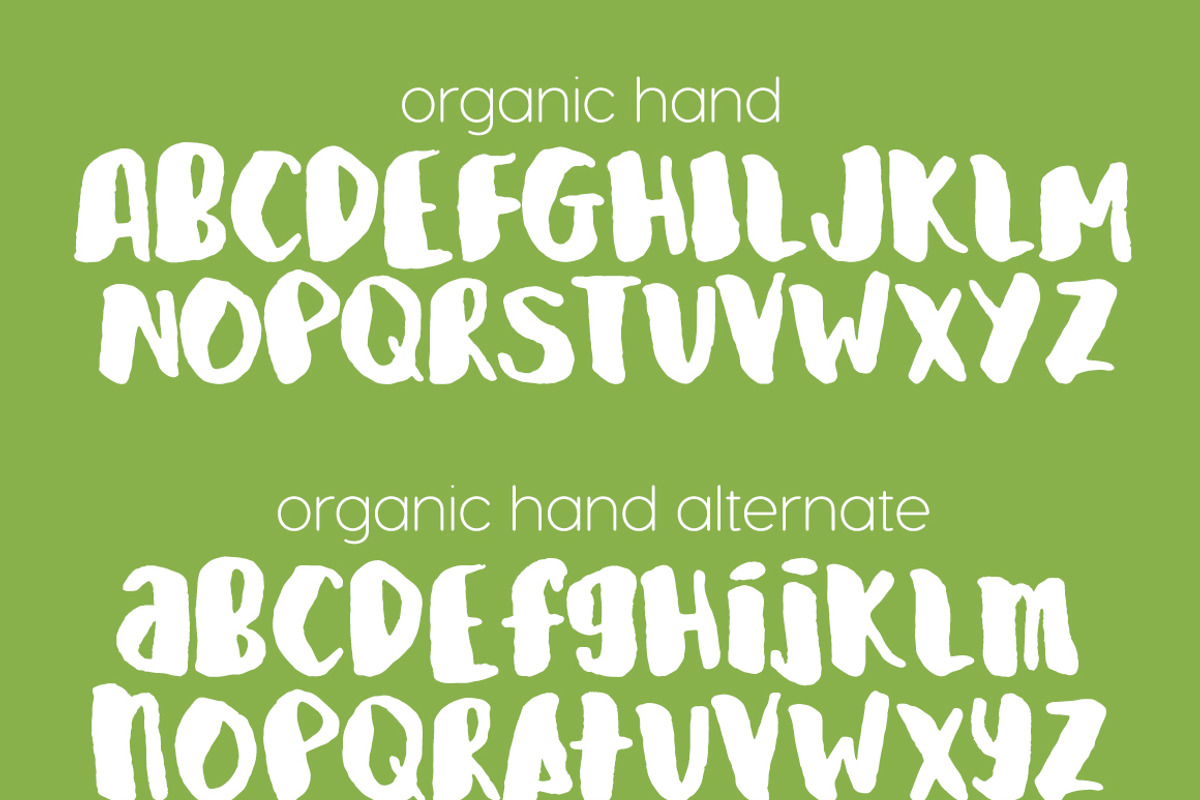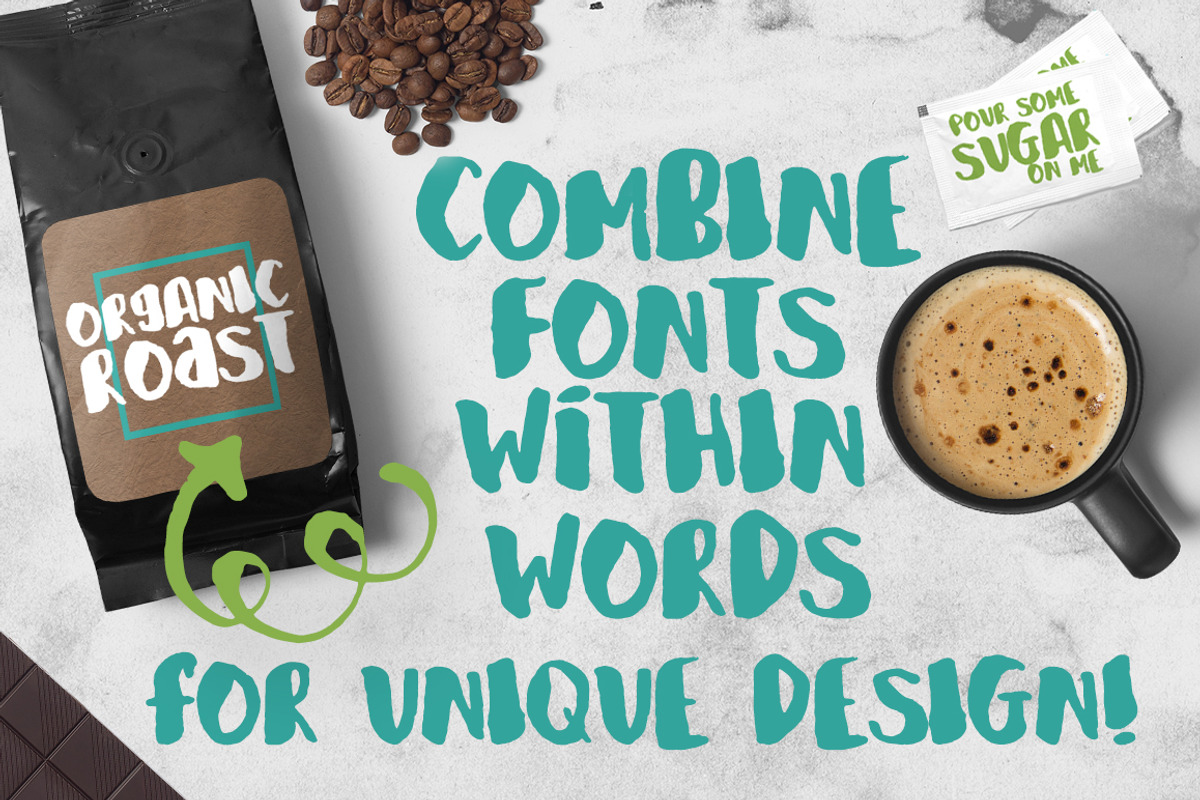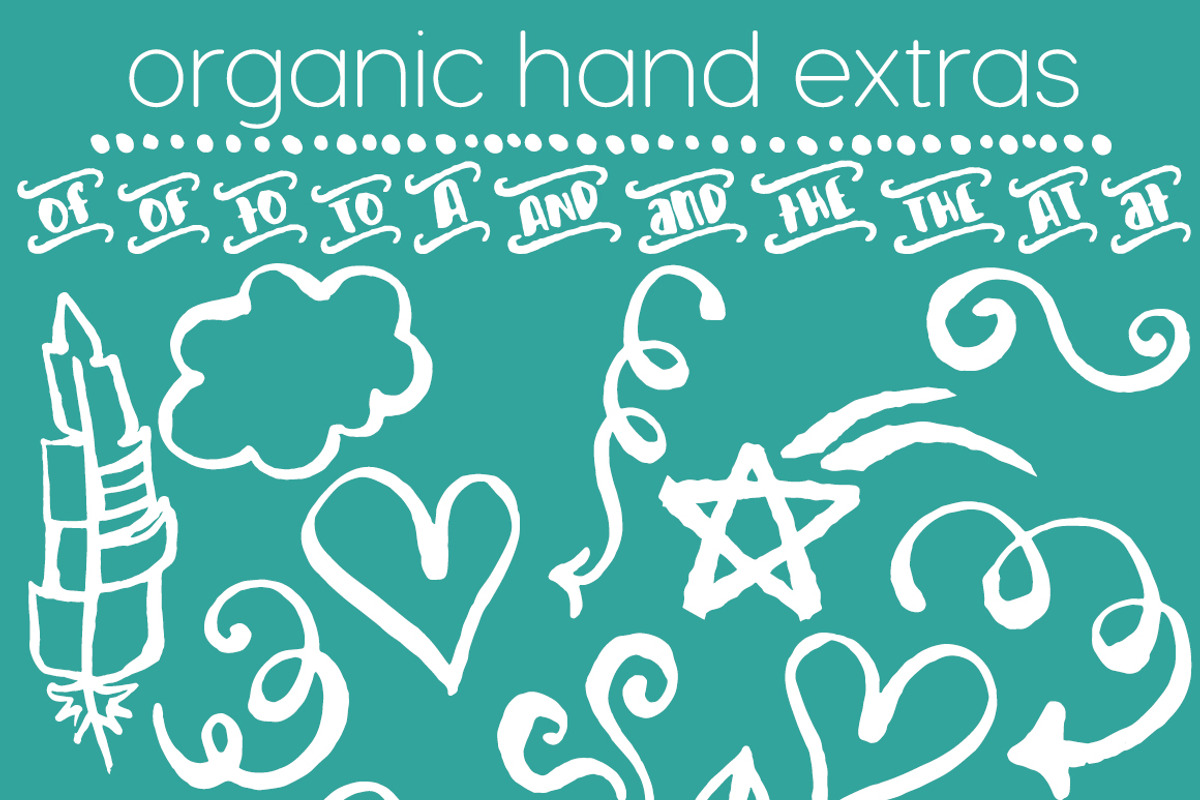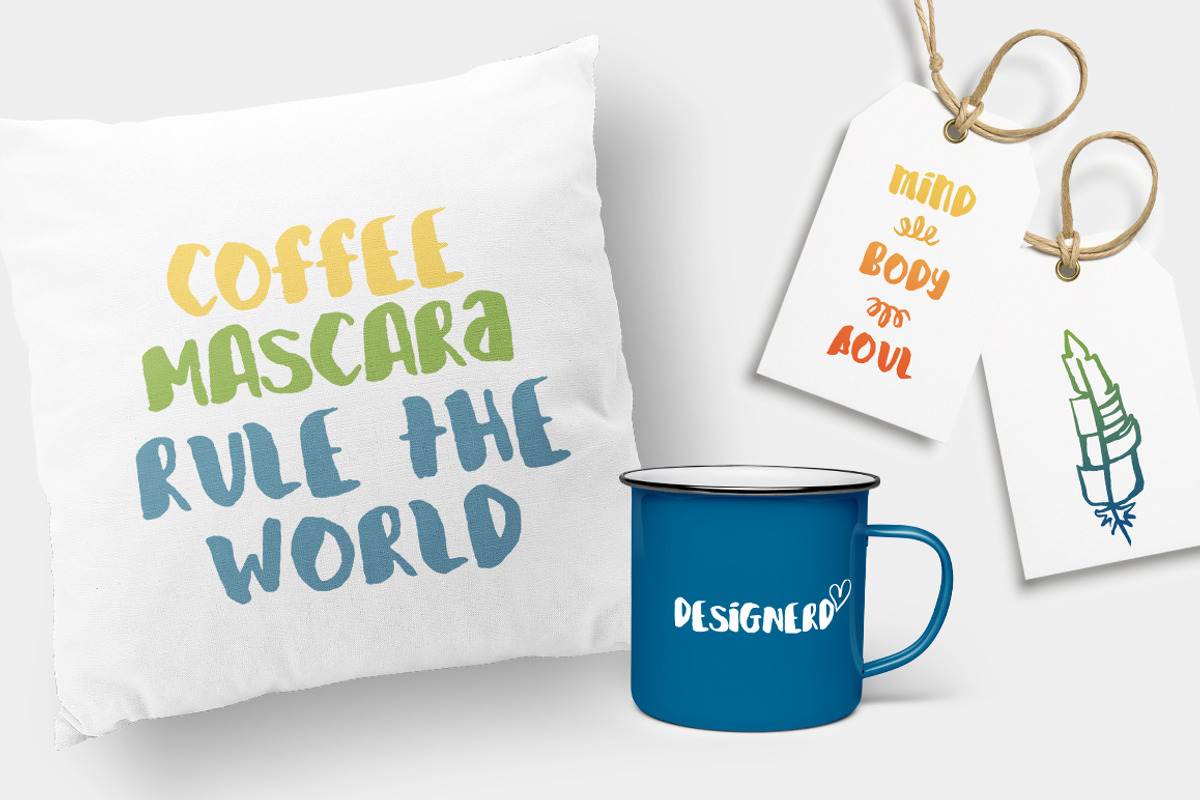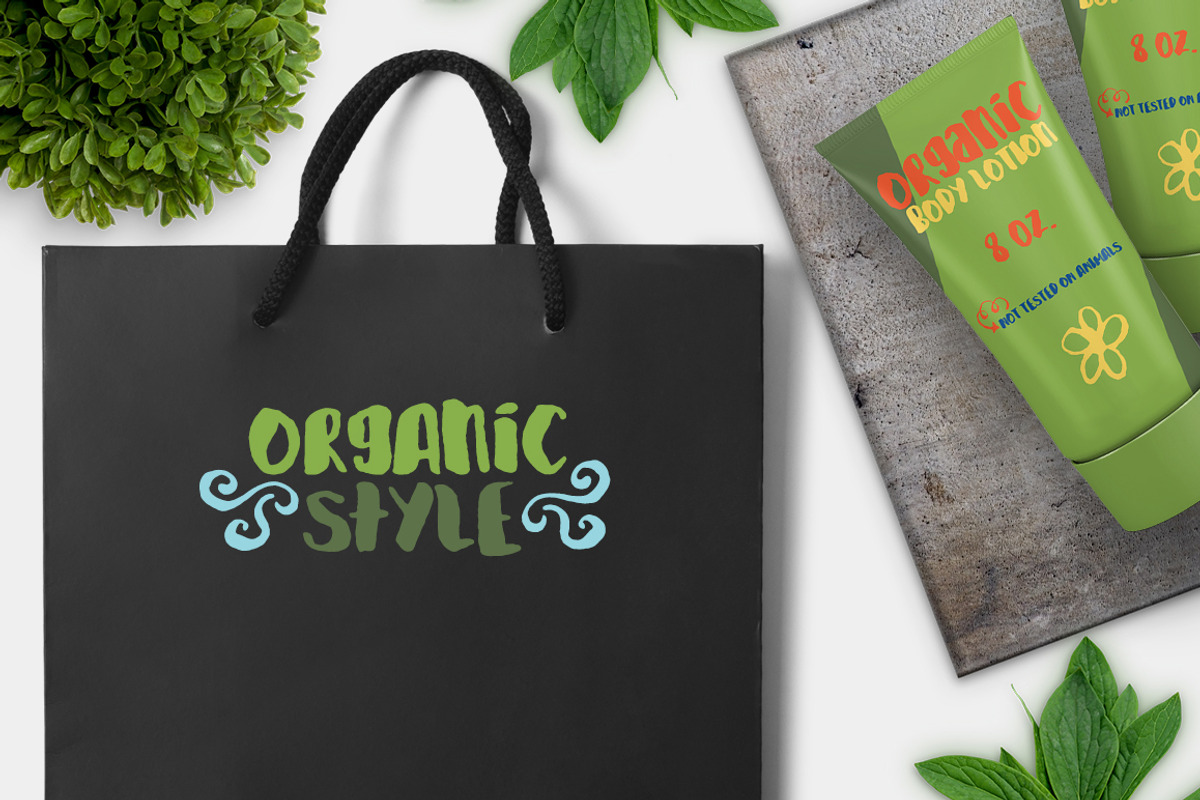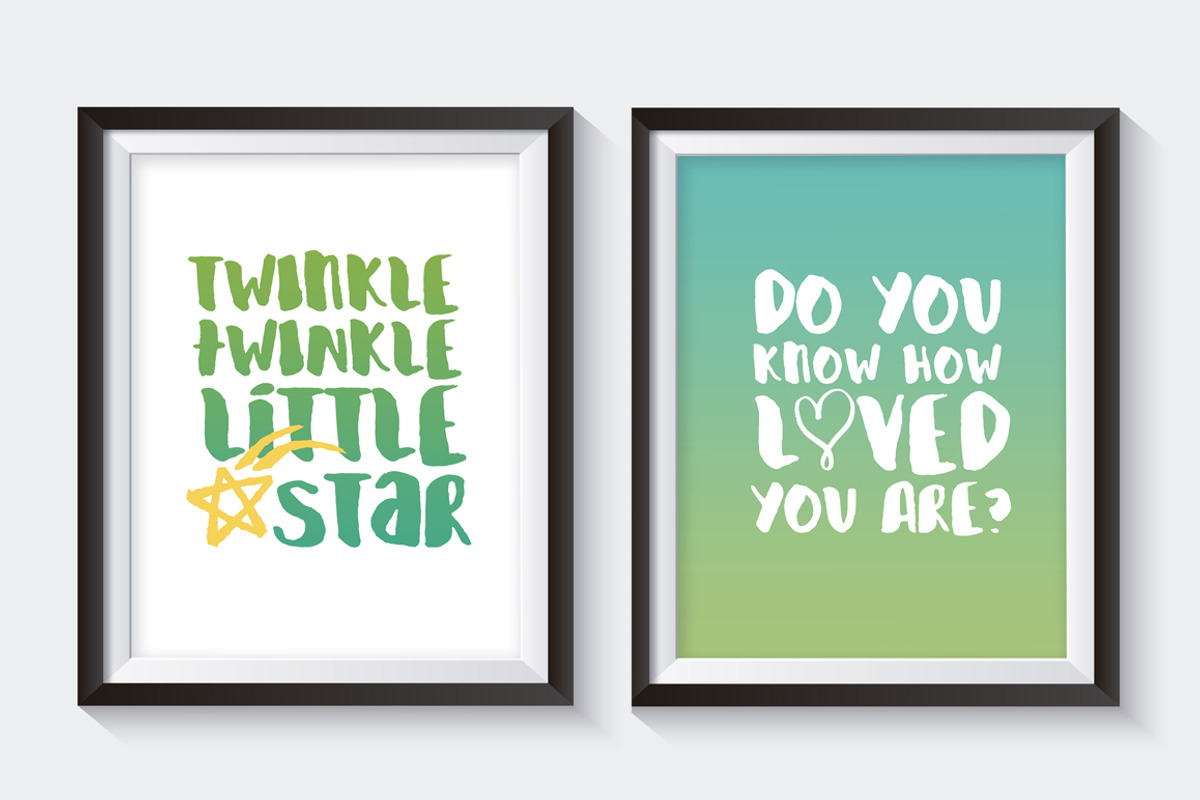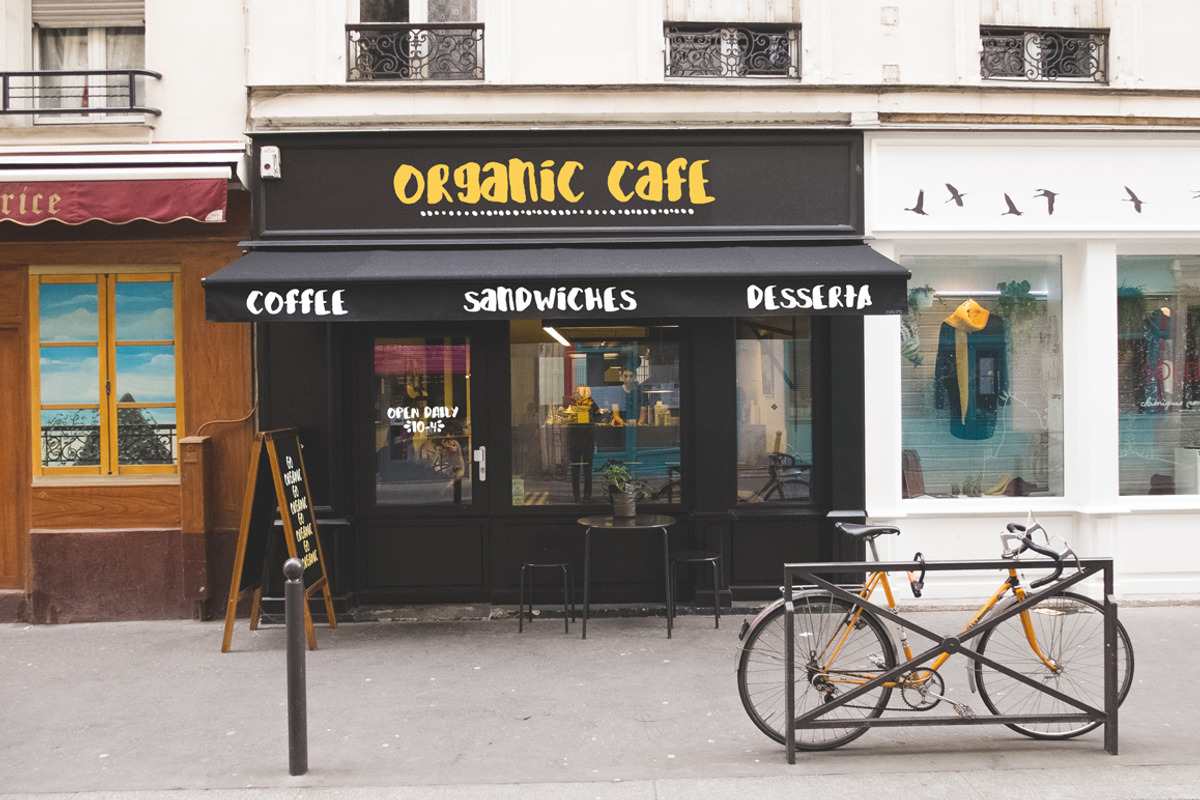
Organic Hand Font Trio
Organic Hand Font Trio by Jodi Van der Kruik is a font selected for branding, posters, packaging, typography.
- Organic Hand Alternate has many of the same letters as Organic Hand, but with certain letters traded out for lowercase alternatives.
Why Organic Hand Font Trio is worth a look
Organic Hand Font Trio by Jodi Van der Kruik fits naturally into Branding, posters, packaging, typography.